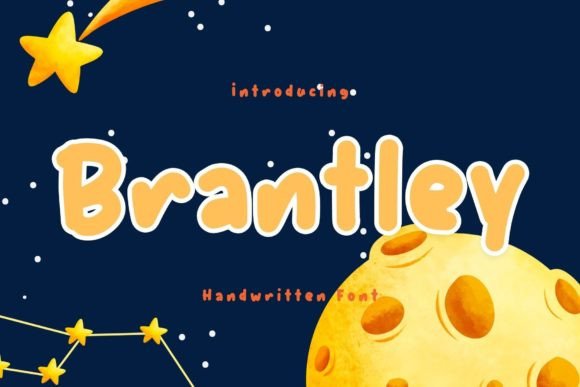
Discover the Charm of Brantley Font: A Perfect Choice for Creative Projects
I’ll never forget the time I was working on a branding project for a children’s play area. I had the logo design all sorted out, but I was struggling to find the perfect font to complement it. The client wanted something playful, yet authentic and inviting. That’s when I stumbled upon Brantley Font, and it instantly became the perfect fit. In this article, I’ll share my experience with Brantley Font, its features, and how to make the most of it in your designs.
A Personal Review of Brantley Font
Brantley Font is a cute handwritten font that embodies playfulness and authenticity. It’s perfect for a wide range of projects, from blog posts and logos to invitations and greeting cards. Here’s what I love about it:
• ✨ Playful and whimsical feel
• 💕 Wide range of use cases, from digital to print
• 🎉 Easy to pair with other fonts for a unique look
While Brantley Font is an excellent choice, it’s not without its quirks:
• 🤔 Some letters may appear a bit too connected for certain design styles
• ⚠️ Limited availability of stylistic alternates (but still offers a range of OpenType features)
The Story Behind Brantley Font
Brantley Font was designed with the intention of creating a playful and authentic handwritten font. The designer aimed to craft a font that would be perfect for a wide range of creative projects, from digital designs to print materials. With its unique character and versatility, Brantley Font has become a popular choice among designers and crafters.
What type of projects is Brantley Font best suited for? Brantley Font is perfect for a wide range of projects, including blog posts, logos, branding, ads, invitations, greeting cards, planners, photo albums, decorations, and more.
Is Brantley Font easy to read? Yes, Brantley Font is highly legible, even at small sizes, making it suitable for both digital and print designs.
Does Brantley Font offer OpenType features? Yes, Brantley Font offers a range of OpenType features, including ligatures and stylistic alternates, to add personality to your text.